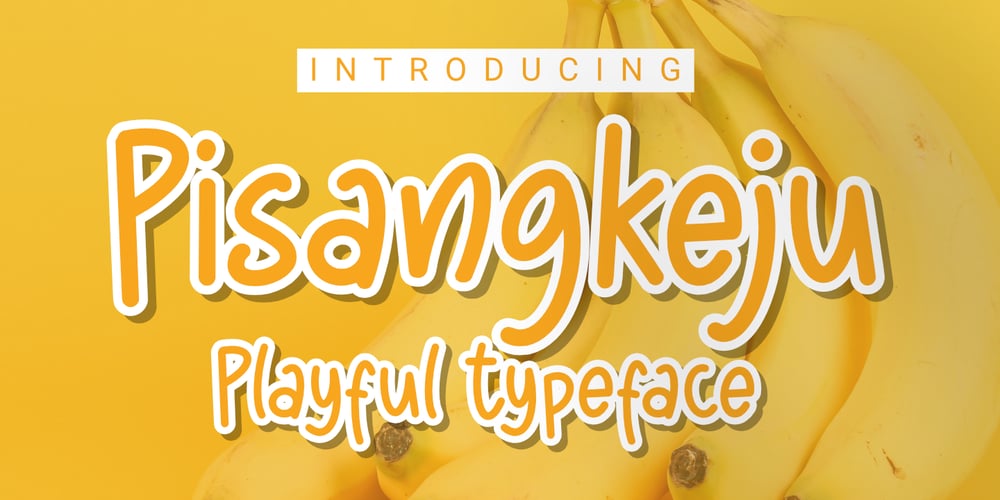
Pisangkeju Font Family was designed by Toni Dzulham and published by Dumadi. Pisangkeju contains 1 styles and family package options. Pisangkeju – Playful Typeface is a casual font made for casual, fun, and informal designs so that it looks perfect with the projects you make.Pisangkeju is perfect for designs, logos, social media, brands, content, advertisements, product designs, quotes, product packaging, headers, posters, merchandise, and other designs.What’s Included :+ Standard glyphs+ Ligature+ Web Font+ Multilingual Accent+ Works on PC & Mac, Simple installationsAccessible in Adobe Illustrator, Adobe Photoshop, Adobe InDesign, even work on Microsoft Word. PUA Encoded Characters – Fully accessible without additional design software. Fonts include multilingual support+ Image used: All photographs/pictures/vectors used in the preview are not included, they are intended for illustration purposes only.Thanks